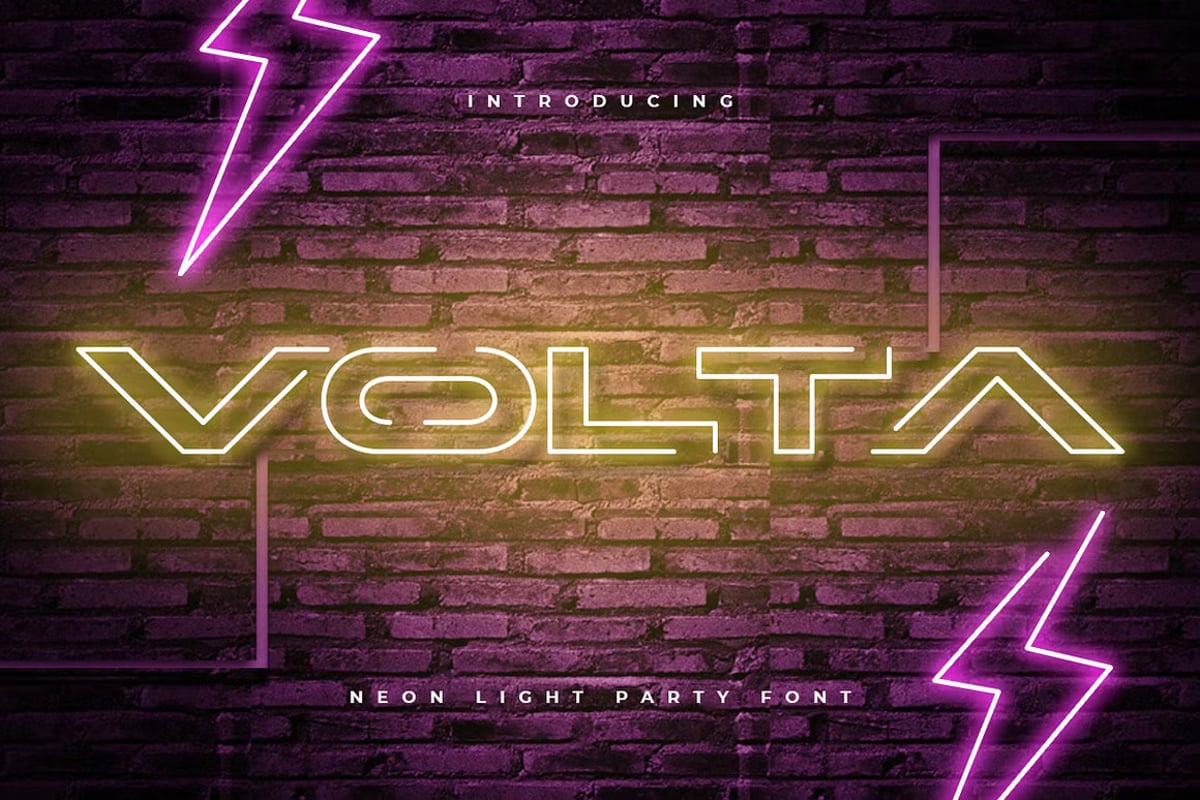
VOLTA - Neon Light Party Font
Transform your designs into electrifying party-style masterpieces with VOLTA's stunning neon light typography. This eye-catching display font was meticulously designed for headlines, titles, and any typography project that needs to make a bold statement. Ideal for adding distinctive flair and crafting captivating visual presentations, VOLTA blends unique character with modern appeal to bring your creative concepts to vibrant life. What's included with VOLTA Neon Light Party Font: Multiple creati...